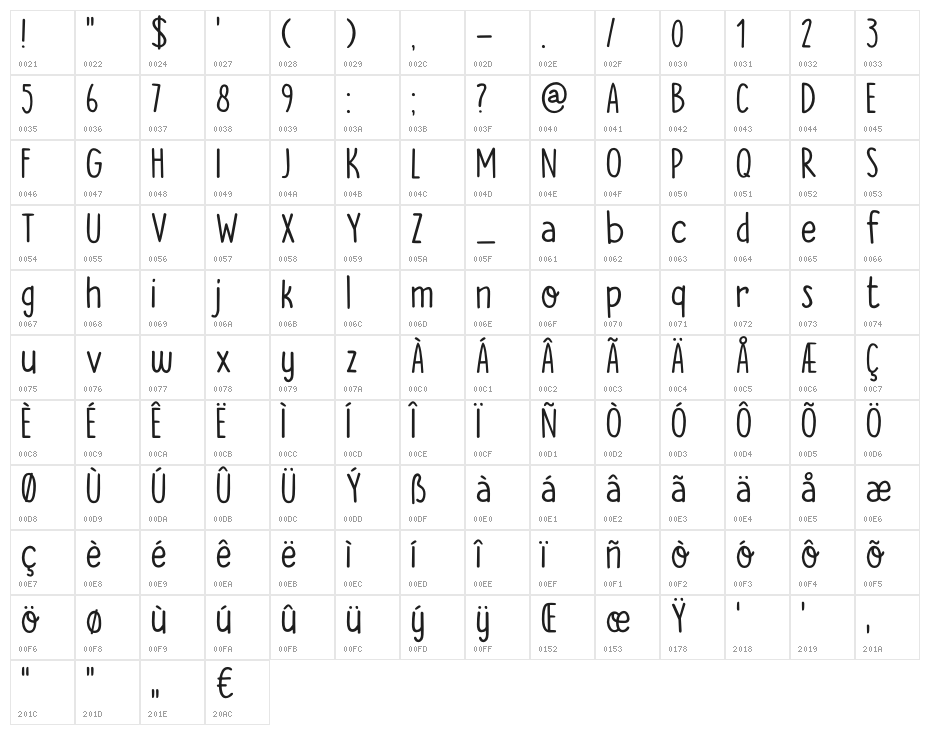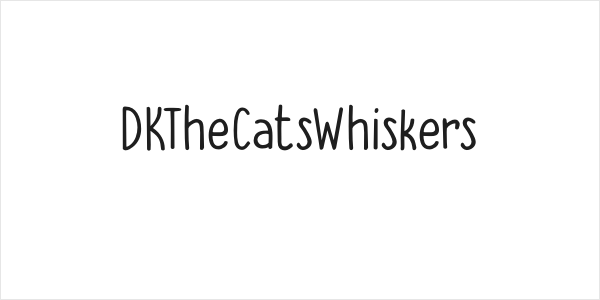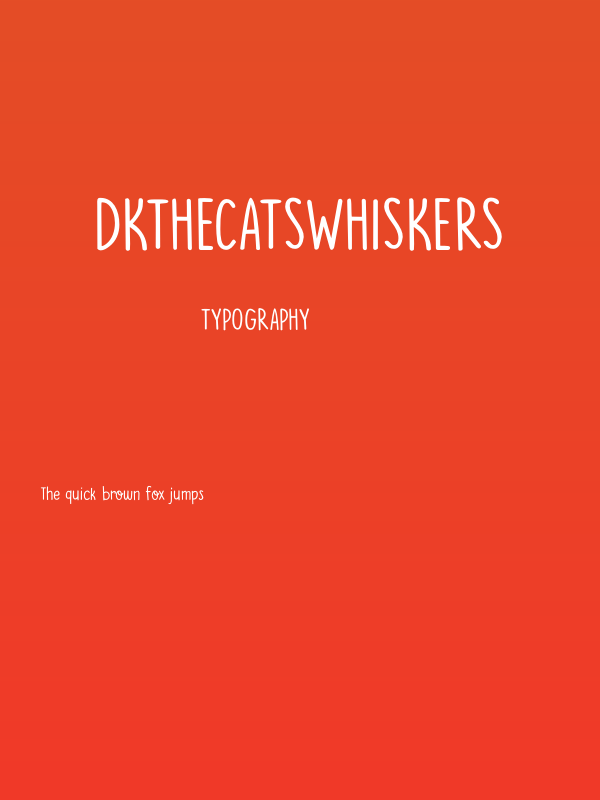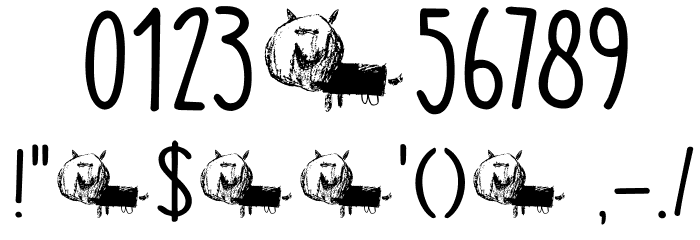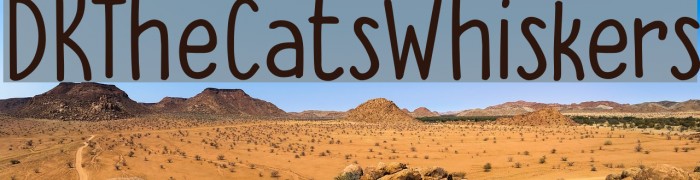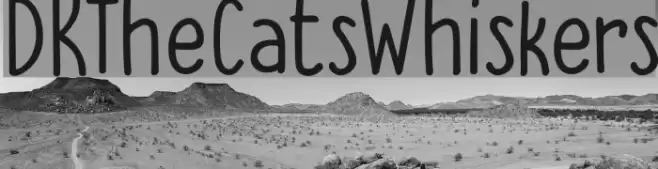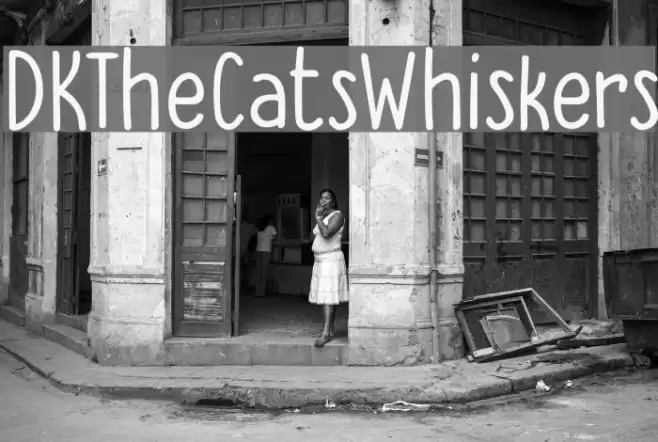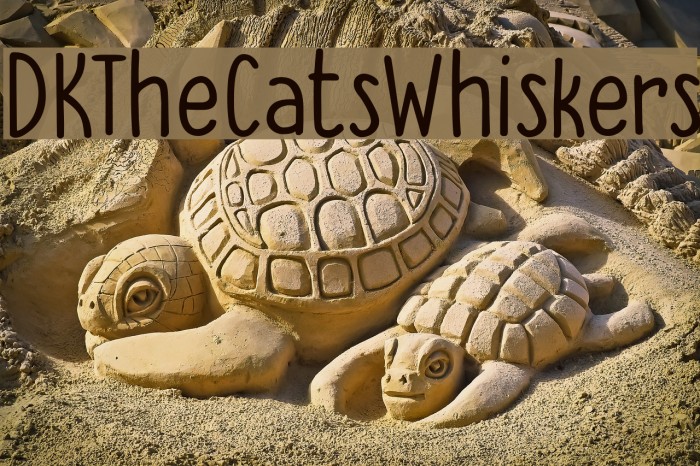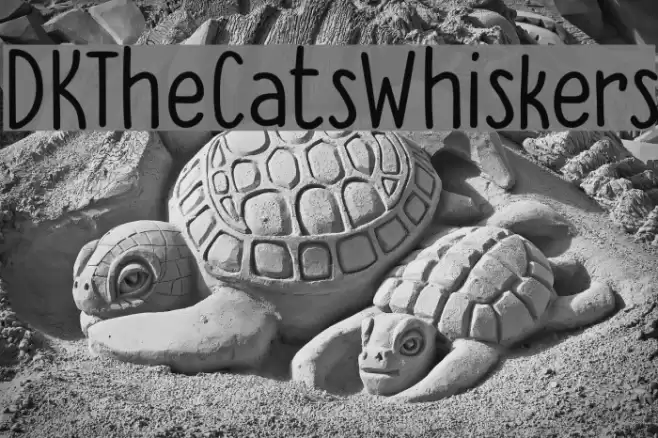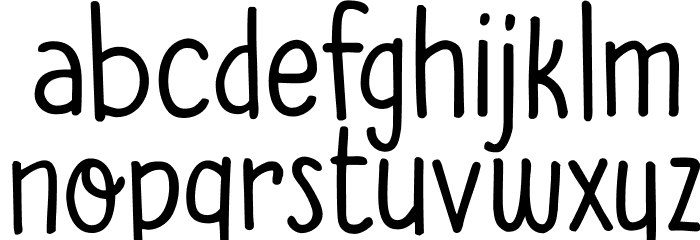
DKTheCatsWhiskers Font
DKTheCatsWhiskers Description
This playful and whimsical font features a handwritten style with a casual and friendly appearance. The letters are slightly irregular, giving it a charming and approachable feel. The uppercase and lowercase characters are well-balanced, maintaining a consistent flow throughout the text. The numbers are clear and easy to read, matching the overall style of the alphabet. Special characters are included, adding versatility to the font. The strokes are smooth and rounded, contributing to its informal and relaxed vibe.
| Overall Style | Whimsical |
| Use Case | Logos, Invitations, Greeting Cards |
| Proposed Projects | Ideal for children's books, greeting cards, playful branding, and casual invitations. |